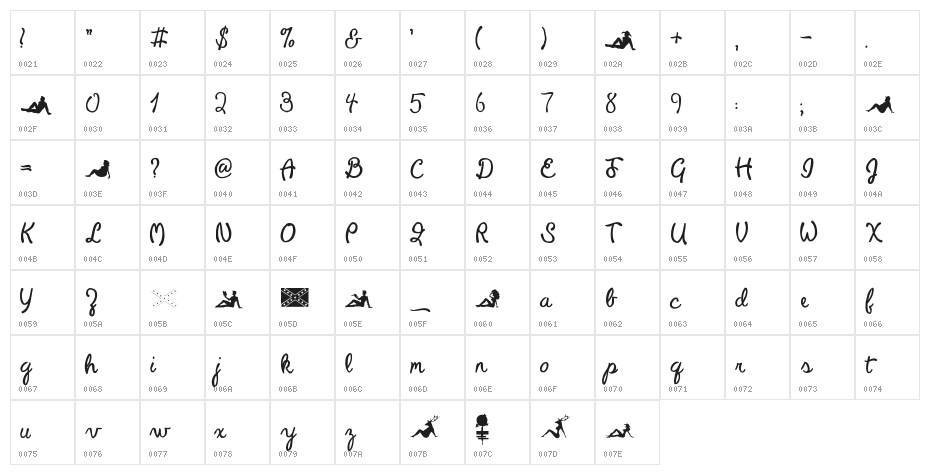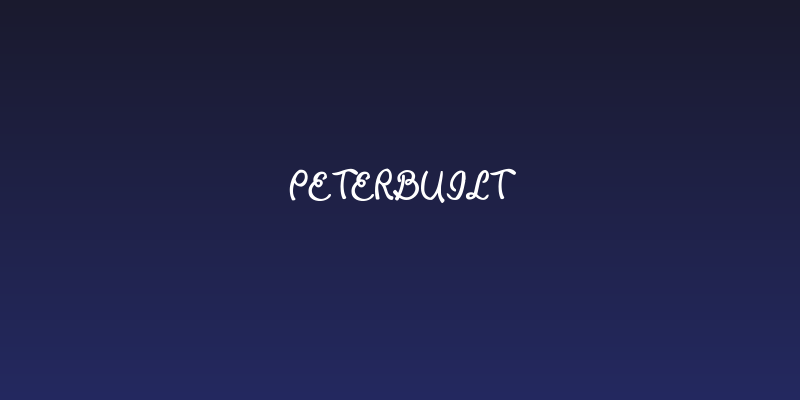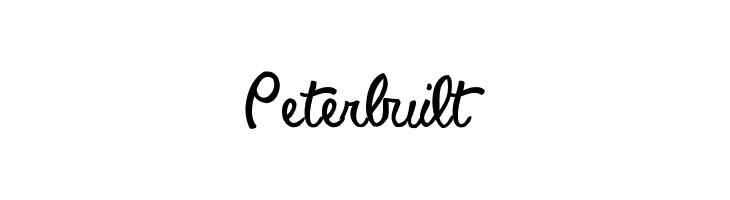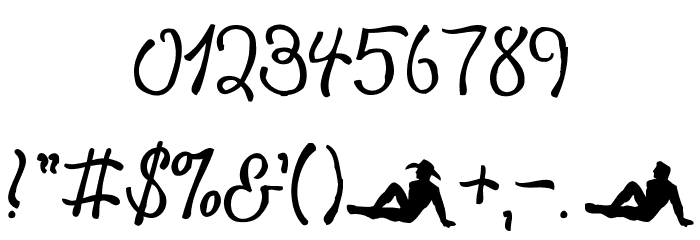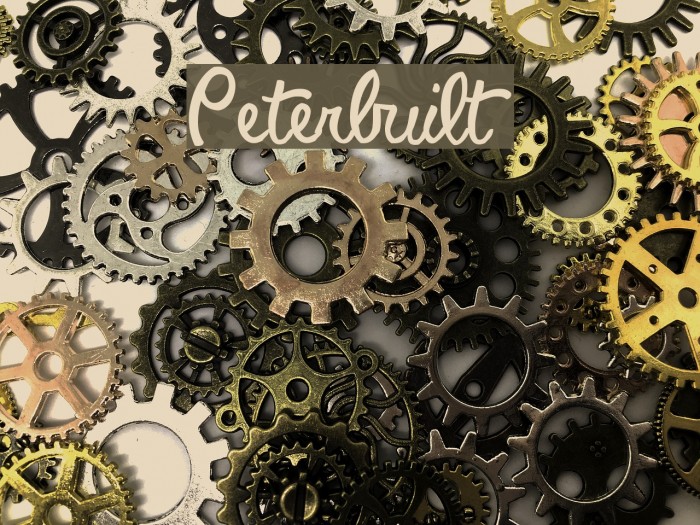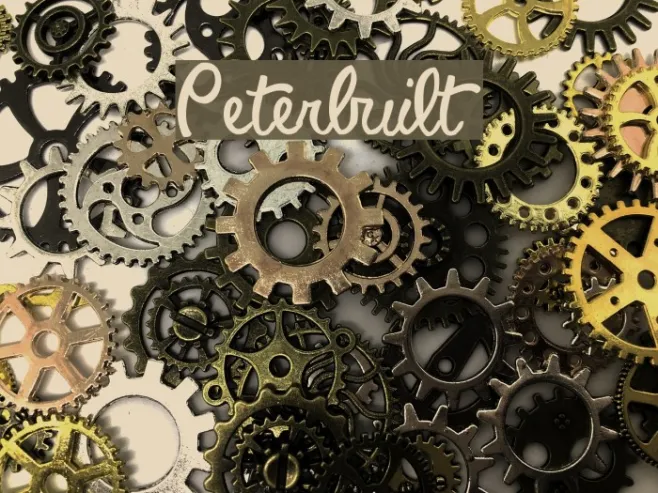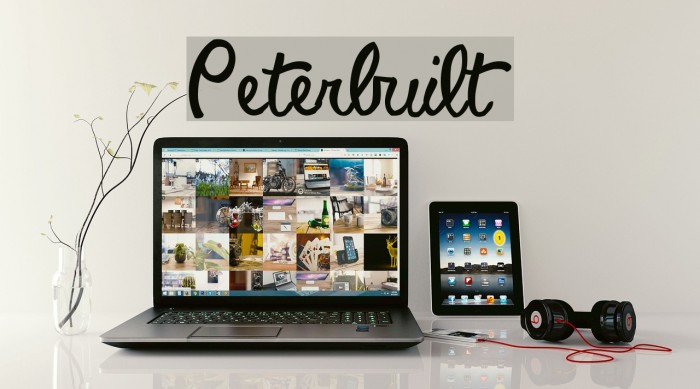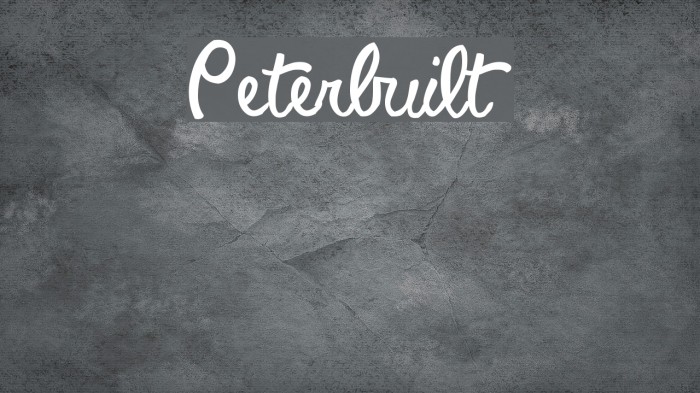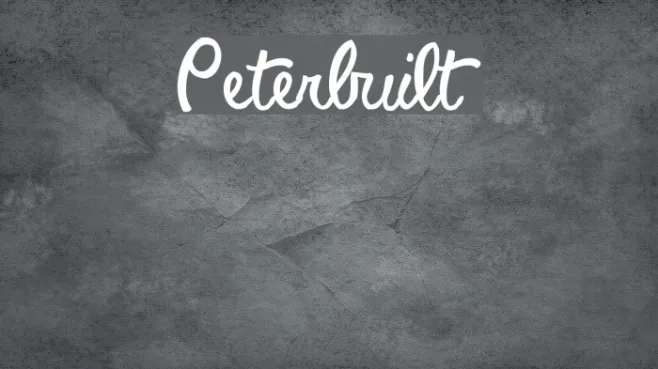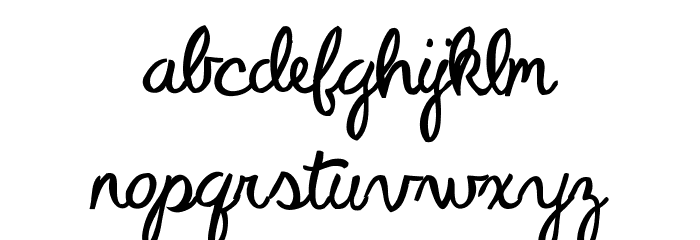
Peterbuilt Font
Peterbuilt Description
This font features a playful and casual script style, characterized by its flowing, connected letters that mimic natural handwriting. The uppercase letters are bold and slightly slanted, giving a dynamic and energetic feel. The lowercase letters maintain a consistent flow, enhancing readability while retaining a personal touch. Numbers are clear and distinct, matching the overall style. Special characters are creatively integrated, adding a unique flair. The font's overall appearance is both approachable and stylish, making it suitable for a variety of creative applications.
| Overall Style | Casual, Playful |
| Use Case | Logos, Invitations, Greeting Cards |
| Proposed Projects | Ideal for greeting cards, invitations, personal branding, and creative projects that require a personal touch. |